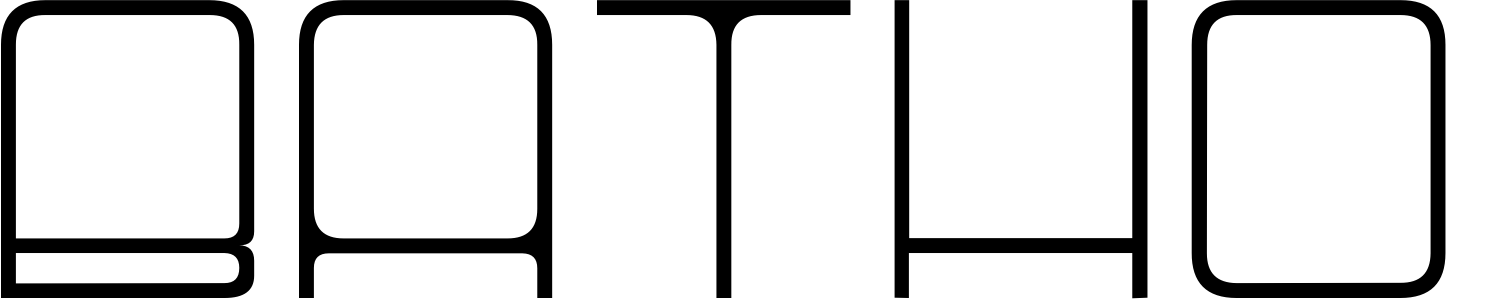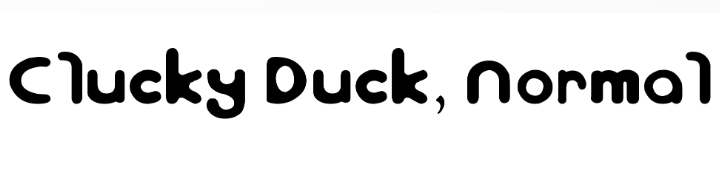
50 Incredible Fonts for Professional Web & Print Design
The web is rich with creative and amazing fonts, and the choice is enormous. So today we would like to present 50 incredible FONT which you can use for web or print design. This collection will sure help you improve your typography skills! Let’s take a close look at some of the most beautiful fonts we’ve found on the web. Some amazing fonts are missing? Let us know!
Clean Fonts
1. Kawoszeh
Font by gluk on Abstrack Fonts.
2. Jacks Font
Font by Jack Edwards on Dafont
3. Tallys
Font by Exljbris on Font Meme
4. Geo Sans Light
Font by Manfred Klein on Dafont
5. Gauntlet
Font by Dimitri Castrique on Dafont
6. Vintage
Font by Flavia Bocco on Dafont
7. Edifice
Font by Dimitri Castrique on Dafont
8. Lemur Light
Font by Andrzej Wartkowsky by on Dafont
9. Aldo
Font by Sacha Rein on Dafont
10. Museo Sans
Font by Exljbris on Font Spring
11. Fertigo
Font by Exljbris on Font Spring
12. FF Chambers Sans Medium Italic OT
Font by Verena Gerlach on Fonts
13. Walkway
Font by GemFonts / Typotheticals on Dafont
14. GOCA LOGOTYPE BETA
Font by Jonas Borneland Hansen on Dafont
15. Birra Stout
Font by Darden Studio on Fontsquirrel
16. Bobel font
Font by Christopher Bitney on Fonts2u
17. Evolution True Type Font
Font by PaulW on Font Space
Grungy Fonts
18. Dirt2Death Font
Font by Dirt2.com on Dafont
19. Grunge Serifia Font OTF